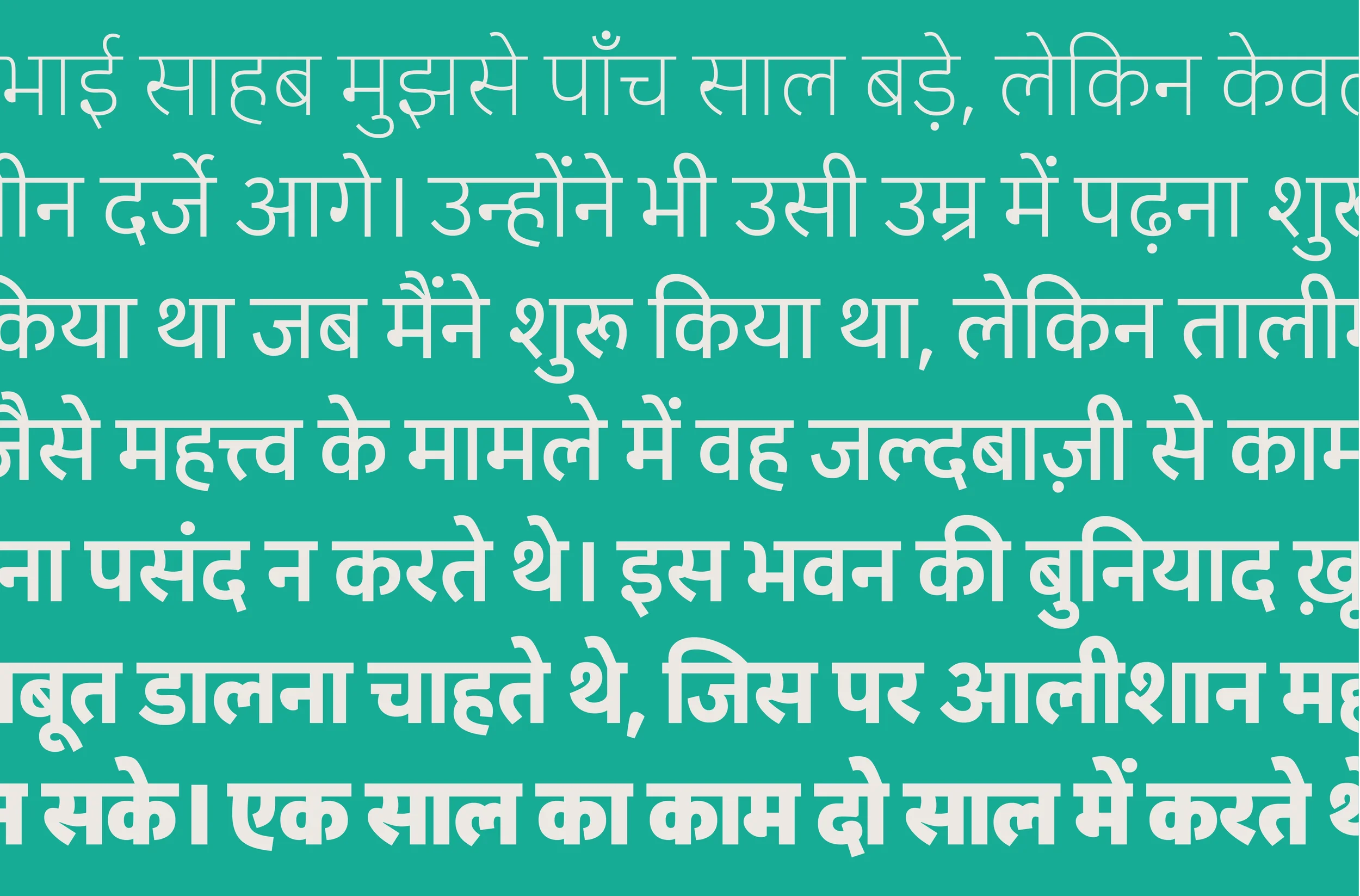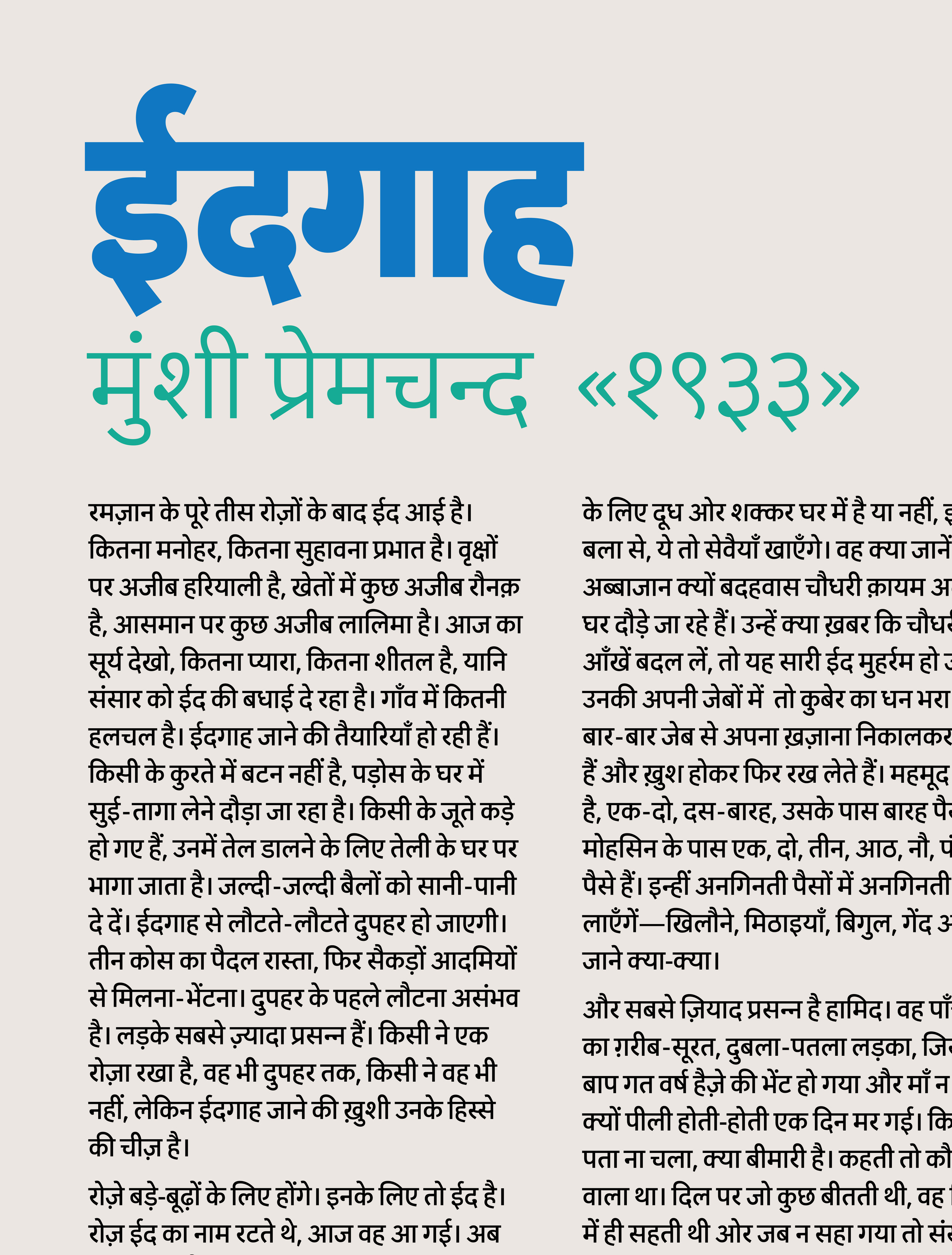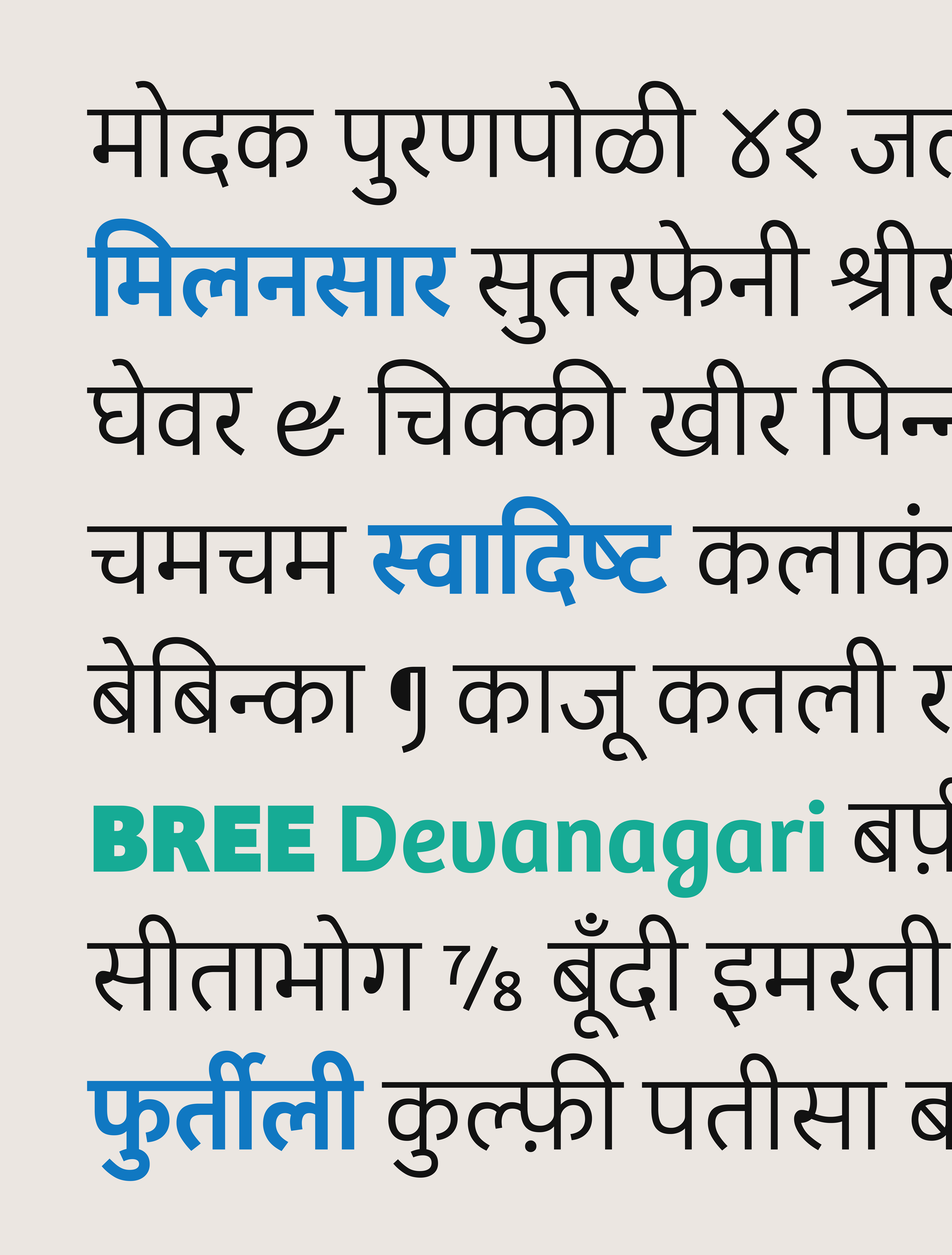
Bree Devanagari — a typeface family with an amiable and dynamic voice
The newest member of TypeTogether’s popular multiscript Bree family, Bree Devanagari is a seven-weight powerhouse of legibility, warmth and charm. The design builds on the foundation of narrow, even horizontal proportions and gestural, handwriting-inspired shapes to create letterforms that are friendly and easygoing. Bree Devanagari presents a fresh, genial typographic voice that doesn’t rely on design naïveté to communicate amiability. I designed this typeface family between 2022–25 with assistance from Shaily Patel, Taresh Vohra and Gunjan Panchal.
Even though the multiscript family offered an adaptable recipe for the Devanagari design, every script’s geometry and grammar poses unique design challenges. Devanagari letterforms had to be expertly manipulated so they would shine in the extrabold weight despite their slender widths and hefty strokes. The typeface also features many closed shapes, such as the ikar and iikar matras, which are fashioned as a nod to the penmanship evoked in the Latin lowercase g, k, y and z: two scripts written by the same hand. Five base consonants, and over one hundred and fifty of their derivative forms — from half letters to conjuncts — also come in two alternates that can transform Bree Devanagari from spirited to restrained in both languages.